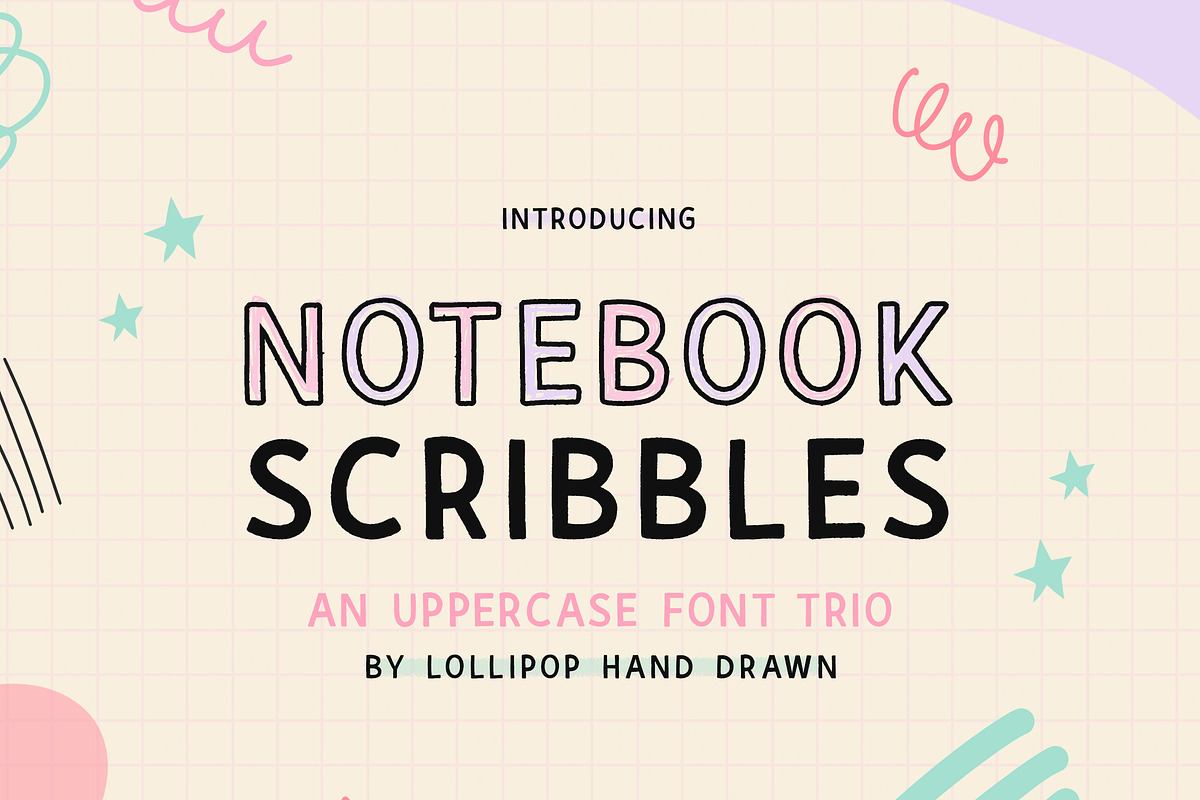
Notebook Scribble is a hand-drawn font designed by Elliott Mariess, offering a casual and playful aesthetic reminiscent of notes jotted in a school notebook. This font is particularly well-suited for projects such as children's cards, scrapbooking, photo annotations, and other creative endeavors that benefit from a handwritten touch.
Design Style: Notebook Scribble features a hand-drawn, informal style that emulates natural handwriting, adding a personal and whimsical feel to designs.
Character Set: The font includes a full set of alternative characters, enhancing its versatility and allowing for varied typographic expressions.
Incorporating Notebook Scribble into your design projects can add a touch of informal charm and personalization, enhancing the overall visual appeal with its hand-drawn style.